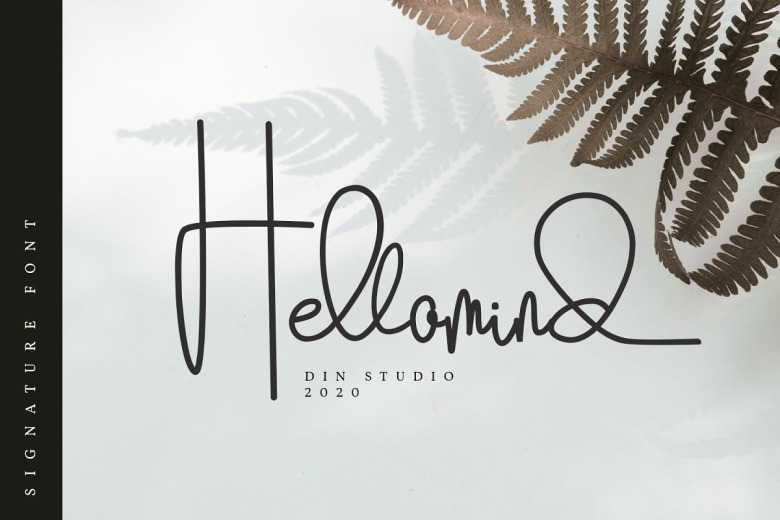
Hellomind Signature Script Font
Hellomind Script Font is a beautiful signature typeface. It brings a modern and attractive typeface.  Made for any professional project branding. With extra attention to natural strokes and sharp details, It’s ideal for logos, apparel, quotes, product packaging, or anything which needs a typographic turbo-boost.